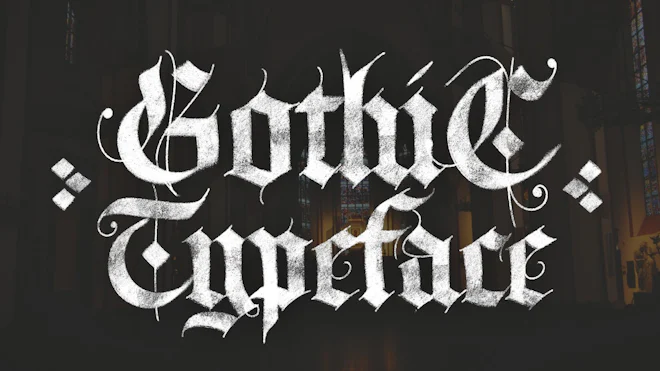
This stock motion graphics video pack includes 75 different clips of gothic upper and lower case letters, numerals and special symbols on a transparent alpha channel.